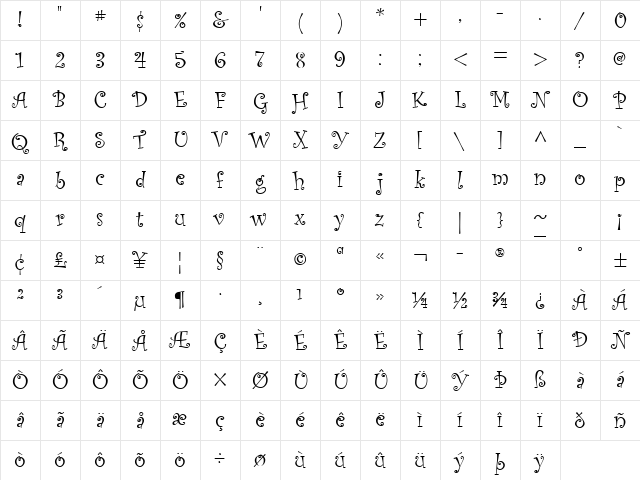
Curlz MT Regular Free Font
Curlz MT Regular
Foundry: Monotype Typography
Designer: Steve Matteson and Carl Crossgrove
Design Context for Curlz MT
Curlz MT is a composed and adaptable typeface that performs quietly and consistently across a wide range of design contexts.
Pro Tip: Use Curlz MT in both headline and body roles to test its range before committing to a single application.